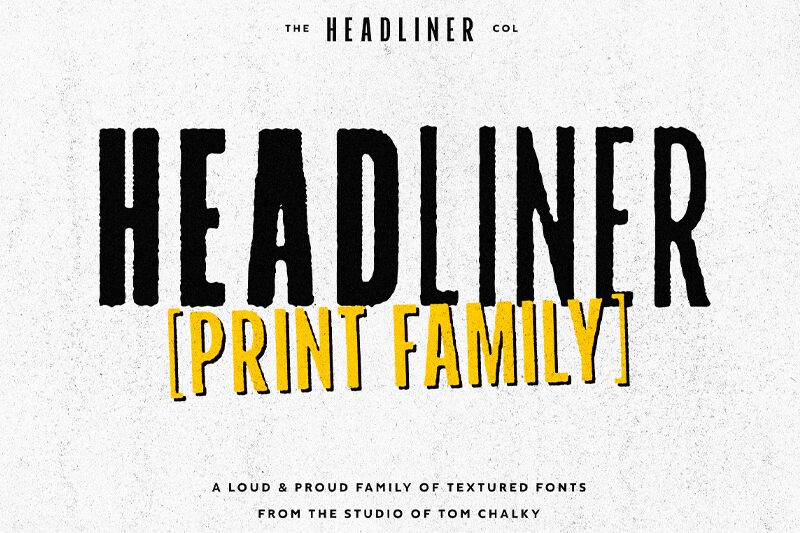
TCHeadlinerPrint-CondBold
TC Headliner Print font by Tom Chalky is a condensed rough textured sans serif created to grab attention and hold it. Designed in a distressed appearance with an industrial feel, the font has bold edges perfect for vintage and grunge design themes. The set features high contrast making it most suitable as a display typeface or for short-texts especially when combined with smoother fonts.